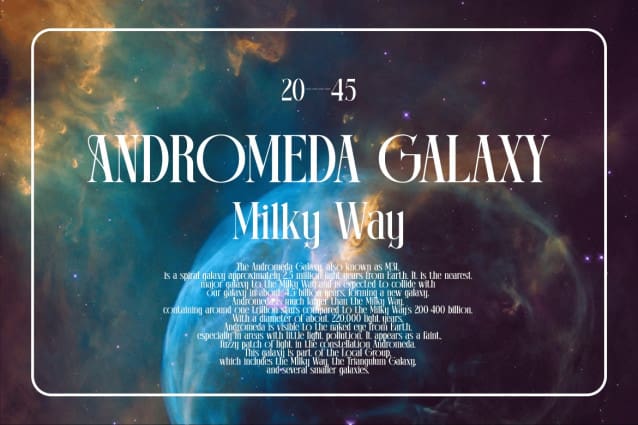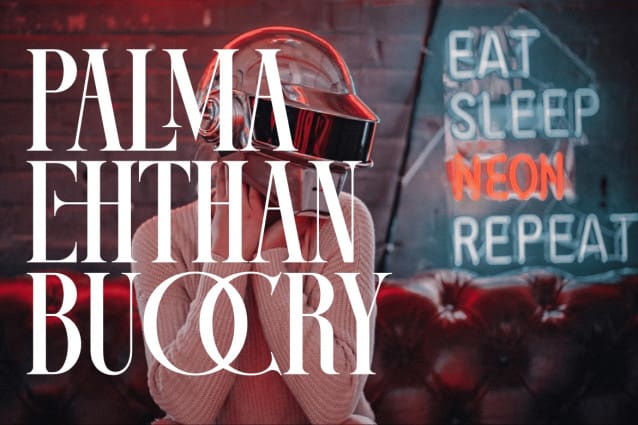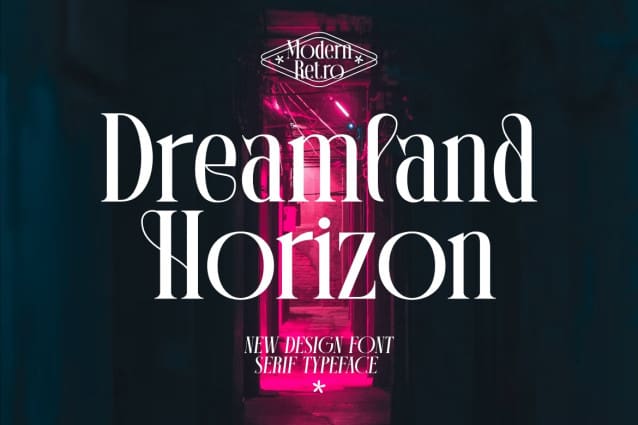
Dreamland Horizon Font
Dreamland Horizon Font. This collection of Serif is perfect for personal branding. It was made with the intention to be used for your personal branding. But, this works well for many applications. Everything from personal branding, logos, name tag, handwritten quotes, product packaging, merchandise, social media & greeting cards. photography signature, advertising could benefit from this collection of these bold signature fonts.